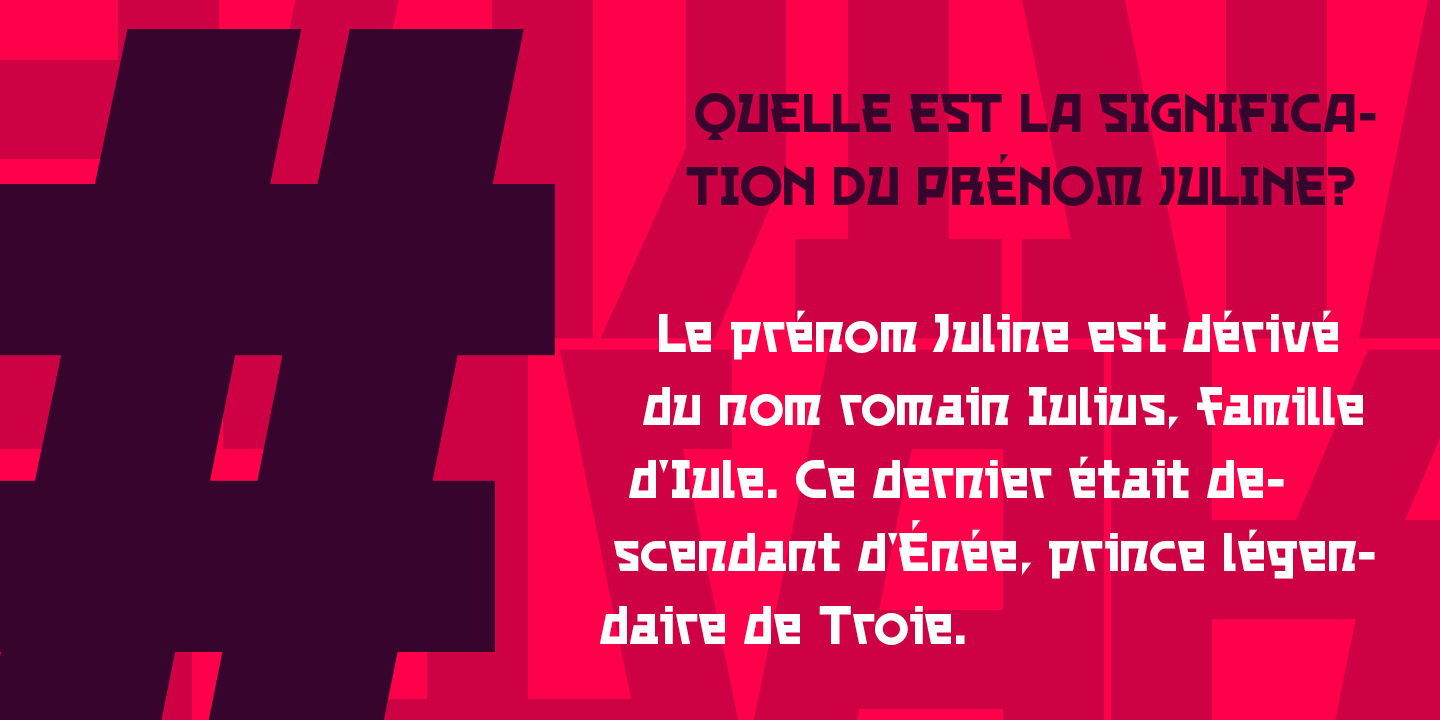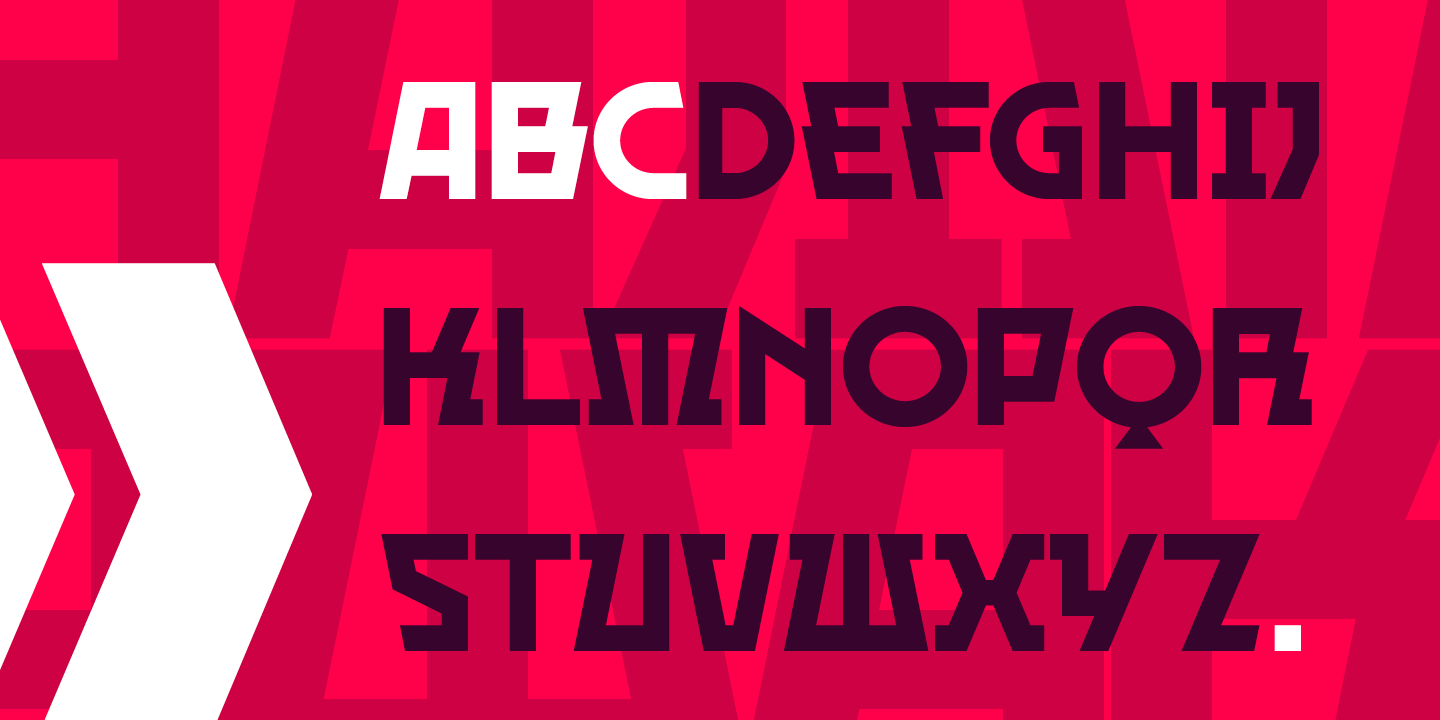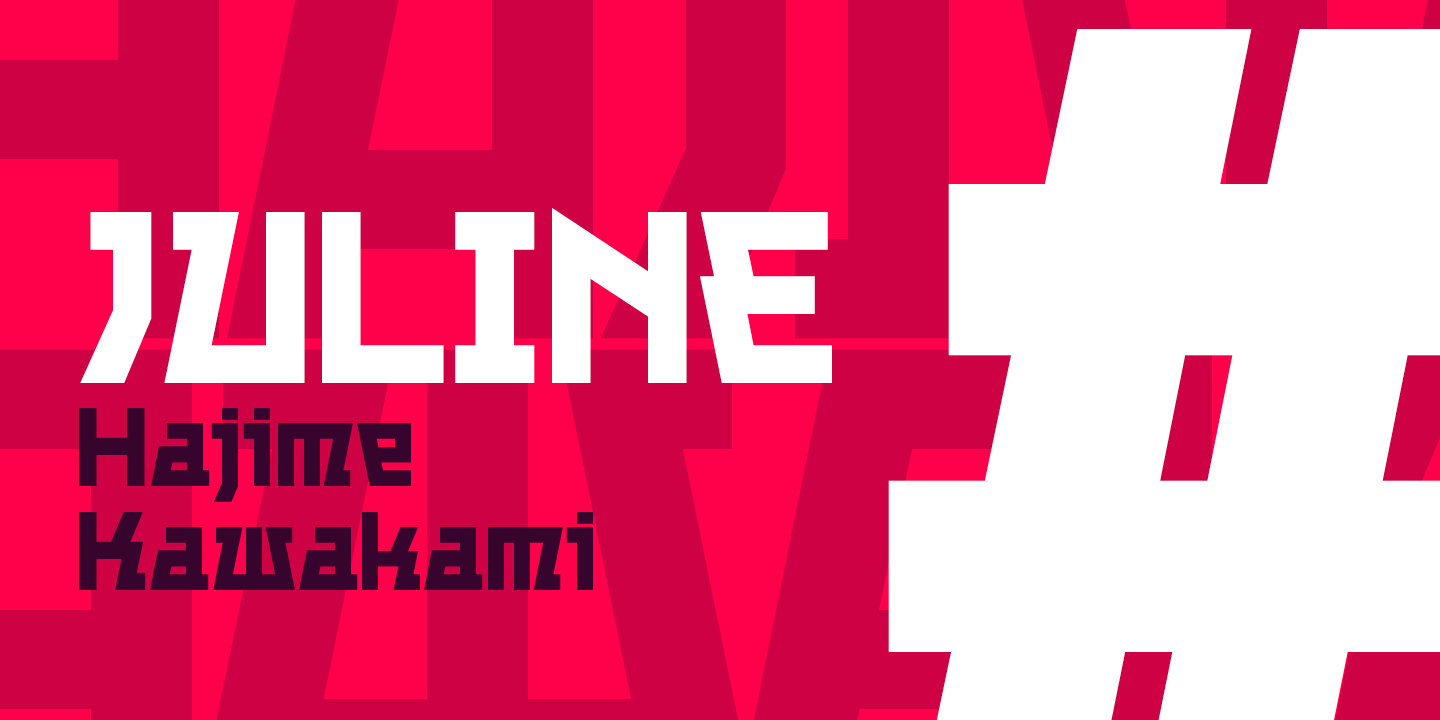
Hajime Kawakami of JapanBorn: 1953 Hajime Kawakami has been working as a Graphic Designer since 1974. He won the 1990 Morisawa International Typeface Design Competition with an Honorable Mention in the Latin Category. Of his work, he says: “I am interested in typefaces, especially those of the Latin alphabet. I like their functional and geometric features, together with their simplicity. I would like to live as a designer relating to characters both Japanese and Latin. I am designing these characters, dreaming that my typefaces might be used for a signboard in an unknown town, or used by unknown people in the world.” Fonts by Hajime KawakamiP22 Akebono, P22 Basala, Cat Cat Cat, P22 Ching Mang, P22 Hiromina 03, P22 Komusubi, Light Fit, Magatama, Mond, P22 Rakugaki, P22 Relax, Seed, P22 Vidro, Wavy Rounded BT, With Ink Browse all fonts by Hajime Kawakami ActivitiesPlease note: This is not an official page of Hajime Kawakami and e-mailing us is not a good way to contact him. Corrections welcomed. |